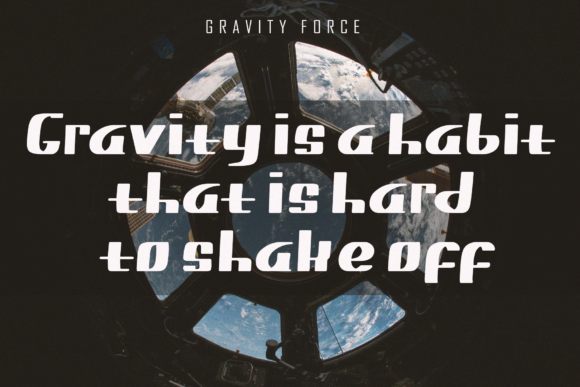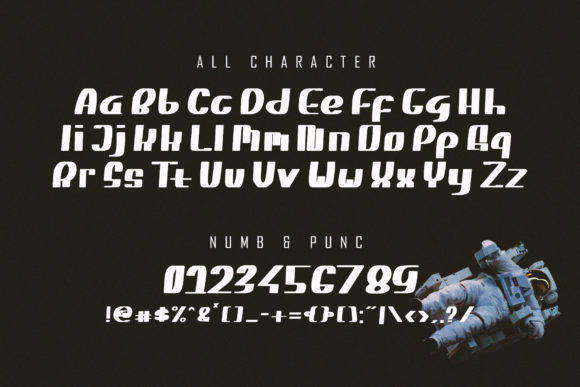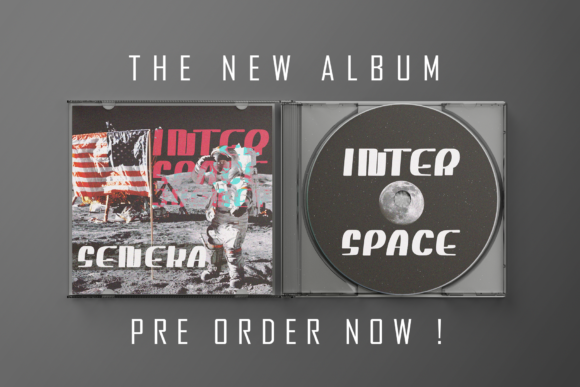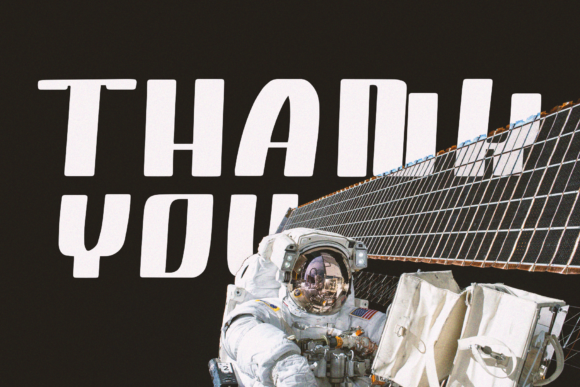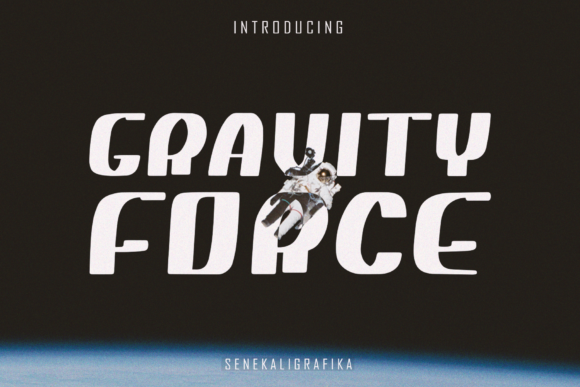
Introducing Gravity Force Font: Elevate Your Designs to Futuristic Heights
In the realm of design, fonts play a pivotal role in conveying the essence and aesthetic of a project. For those seeking to infuse their creations with a futuristic vibe, the Gravity Force Font emerges as a game-changer. Inspired by the sleek, cutting-edge visuals of robotic and techno-based designs, Gravity Force is poised to catapult your typographical designs into the future.
The Inspiration Behind Gravity Force
The Gravity Force Font was conceived with the aim of encapsulating the essence of modernity and futurism. Drawing inspiration from the latest and upcoming trends in technology and design, this font is tailored to evoke a sense of instant future sensations. Its design elements are meticulously crafted to reflect the sleekness and sophistication associated with robotic and techno-based aesthetics.
Whether you’re working on cyberpunk and futuristic projects, crafting a gaming logo, developing a techno branding strategy, or creating digital assets, game design elements, UI and UX interfaces, synth-wave and vaporwave content, futuristic posters, contemporary typographic designs, tech-wear apparel, vehicle designs, or prototype concepts, Gravity Force Font is the perfect companion. Its universal and modern design makes it an adaptable choice for a wide array of projects that demand a futuristic edge.
Key Features of Gravity Force Font
- Universal Applicability: Gravity Force is designed to be versatile, making it suitable for various design needs.
- Modern Aesthetic: Its contemporary look ensures that your projects stand out with a fresh, modern appeal.
- Futuristic Boost: The font provides a significant futuristic boost, ideal for projects aiming to convey innovation and forward-thinking.
- Endless Possibilities: With Gravity Force, the potential for creative expression is limitless, allowing designers to explore new dimensions of typographical design.
Applications of Gravity Force Font
The applications of Gravity Force Font are vast and varied. Here are a few examples where this font can make a significant impact:
- Cyberpunk and Futuristic Projects: Add a touch of futurism with a font that speaks to the cyberpunk ethos.
- Gaming Logos and Branding: Elevate your game with a logo and branding that exudes a futuristic and tech-savvy feel.
- Techno Branding: For tech brands looking to emphasize their cutting-edge approach, Gravity Force is an ideal choice.
- Digital Assets and Game Design: Enhance your digital creations with a font that resonates with modern gamers and tech enthusiasts.
- UI and UX Design: Improve user interfaces and experiences with typography that communicates innovation and ease of use.
| Font Name | Gravity Force Font |
| Author | Senekaligrafi Font |
In conclusion, the Gravity Force Font is a powerful tool for designers and crafters looking to infuse their projects with a futuristic and modern aesthetic. Its inspiration from robotic and techno-based designs, coupled with its versatility and wide range of applications, makes it an invaluable asset in the world of design. Whether you’re working on a cyberpunk project, a gaming logo, or any other design that requires a futuristic edge, Gravity Force Font is your gateway to creating visually stunning and impactful typographical designs.